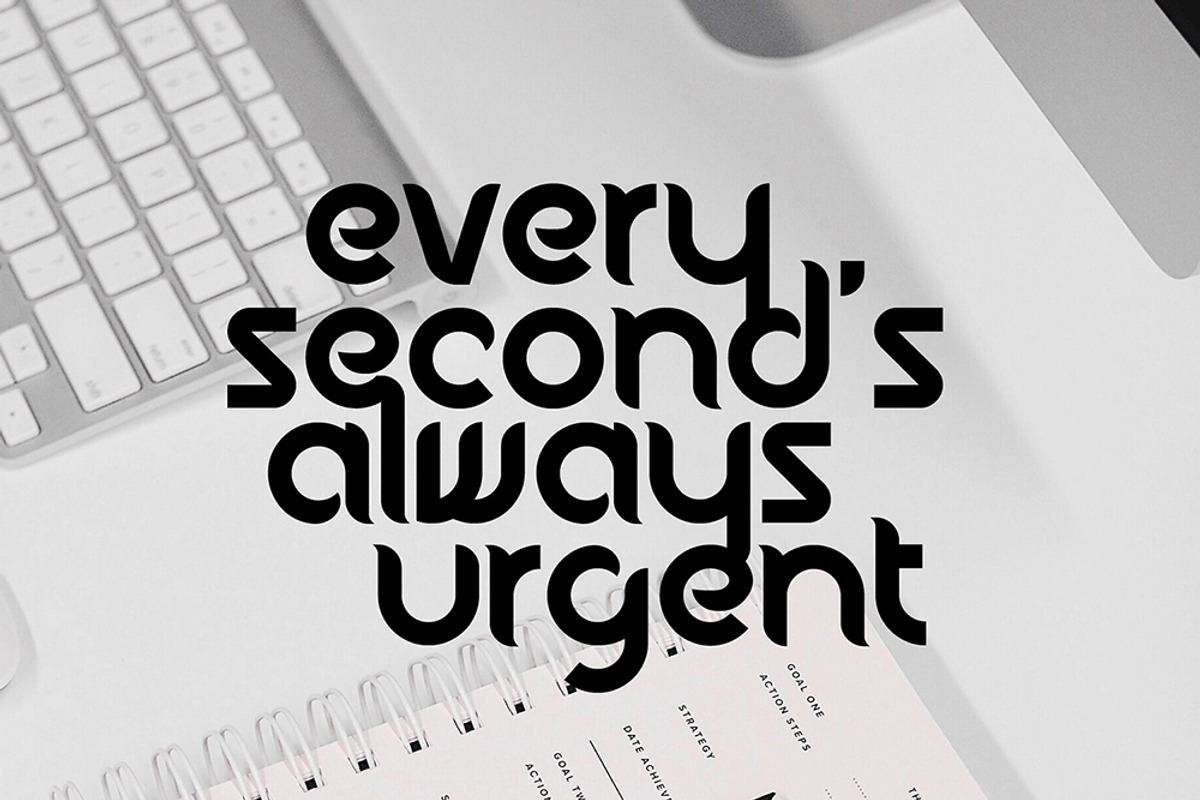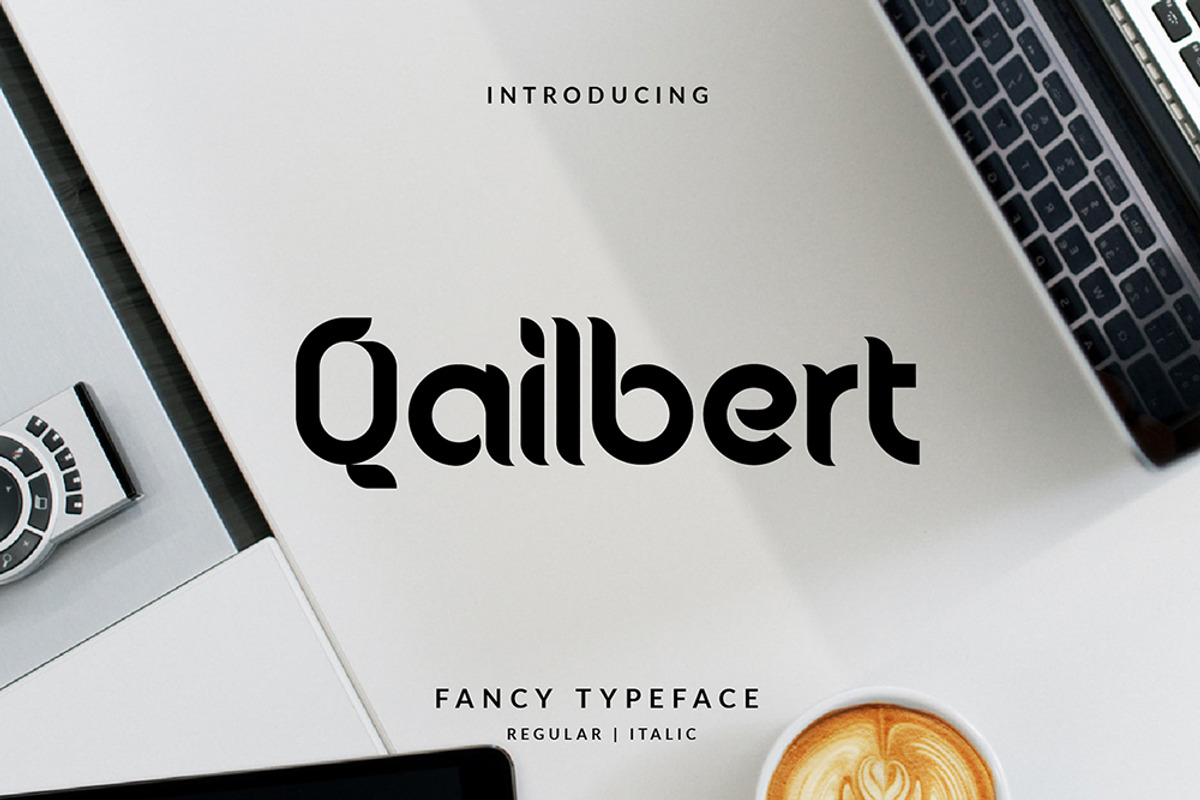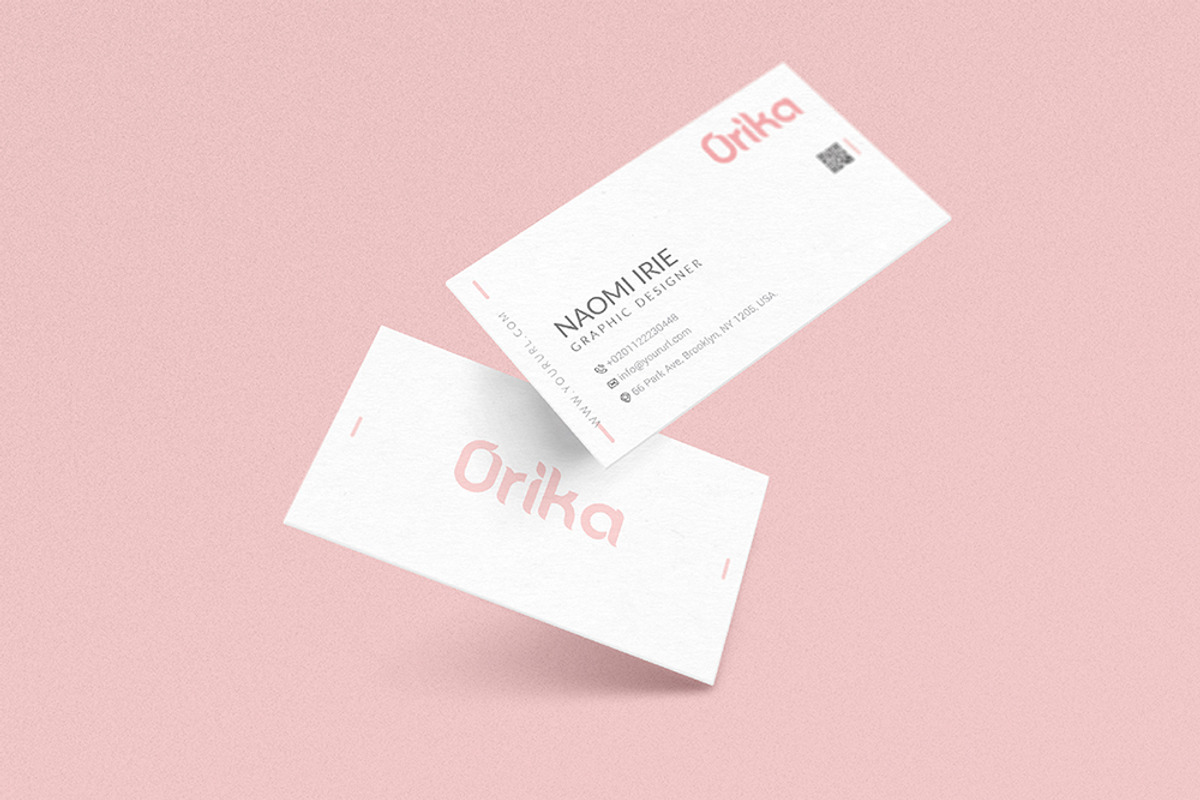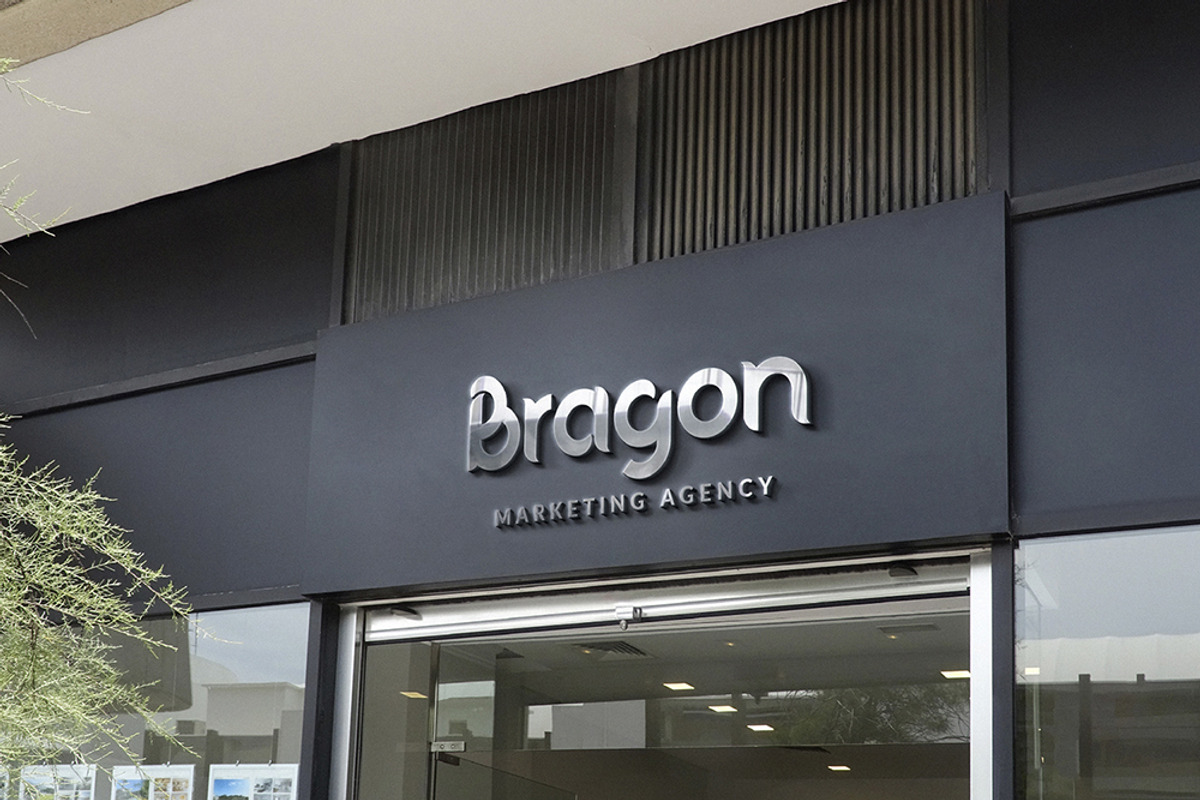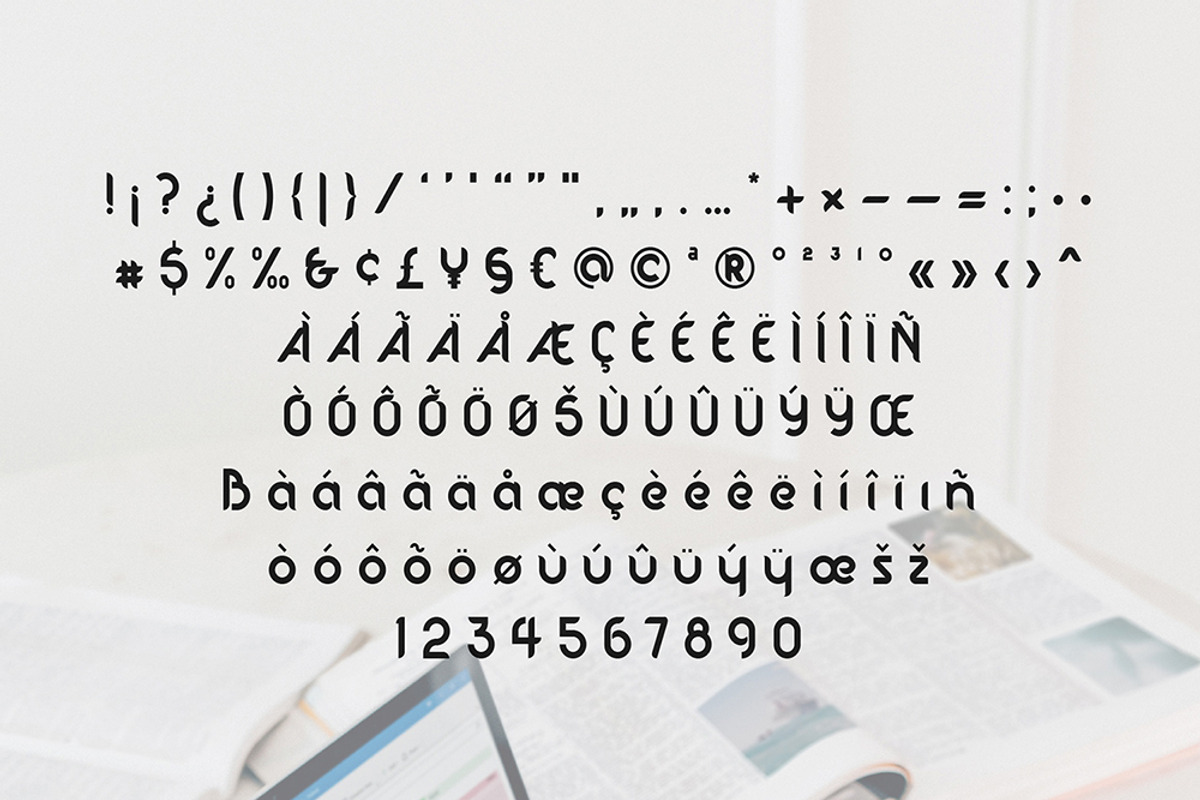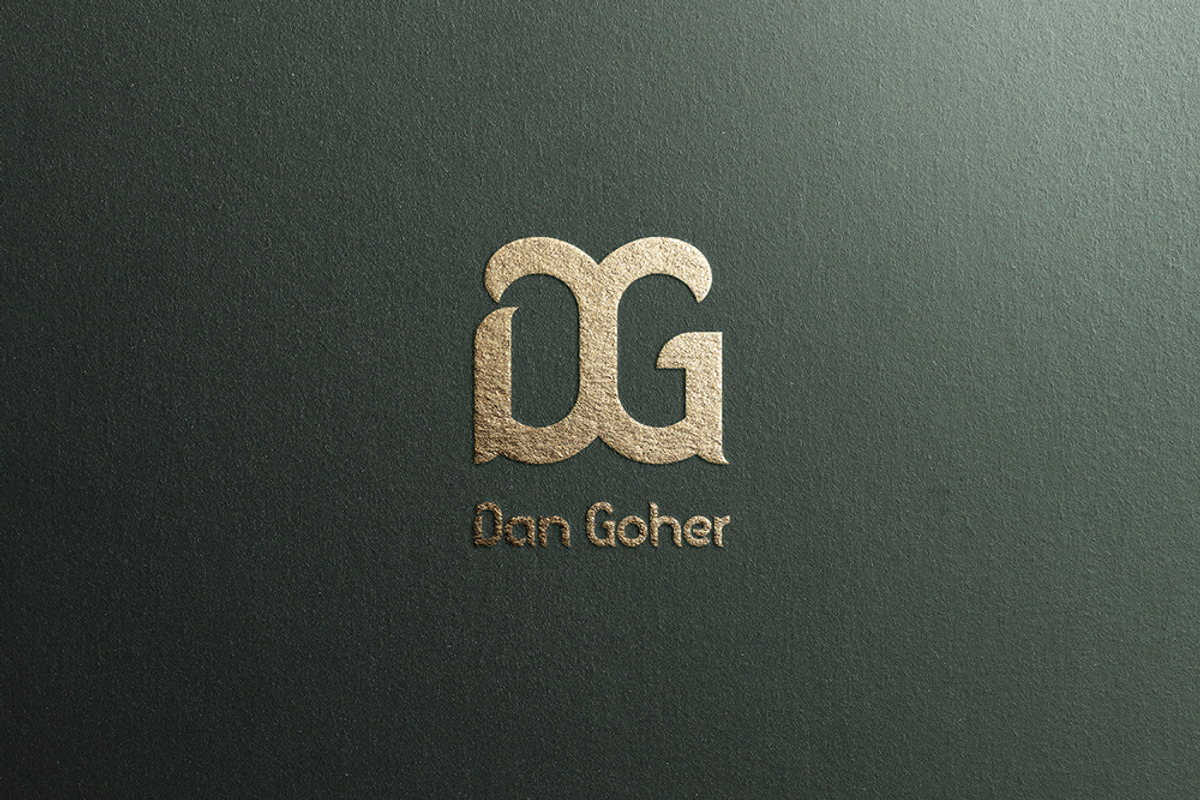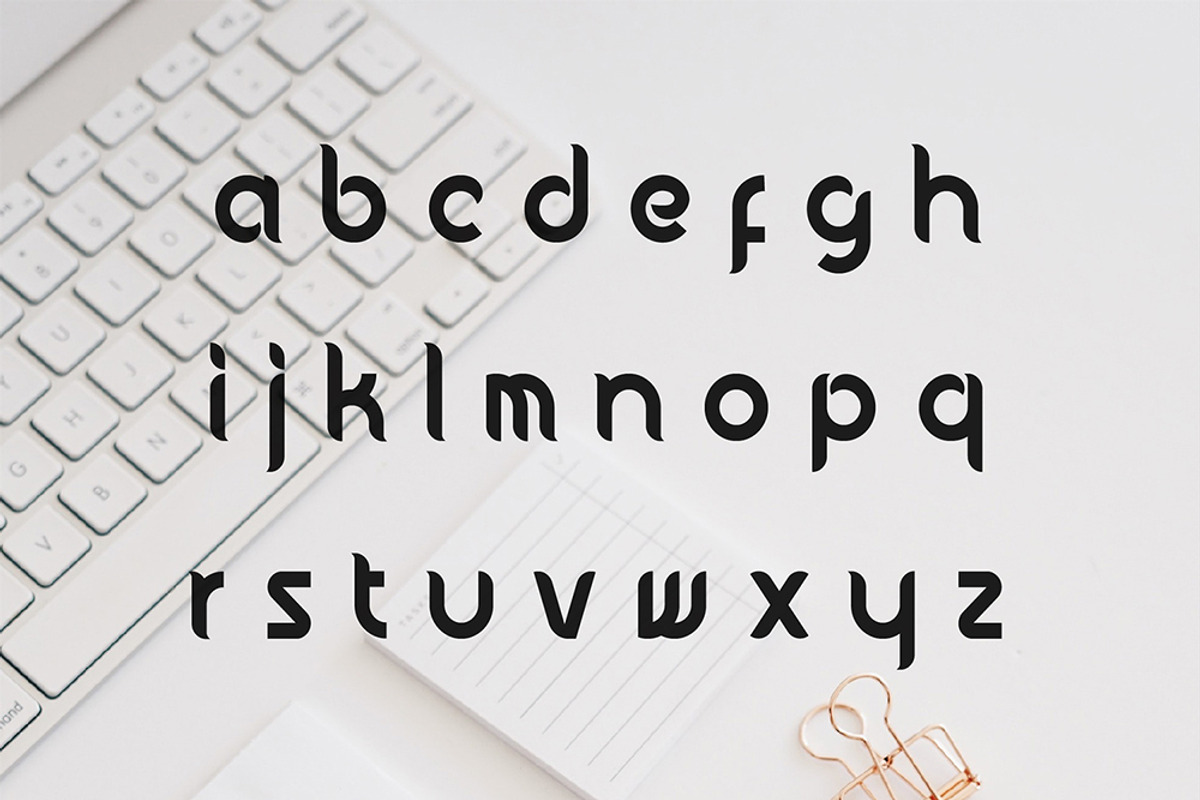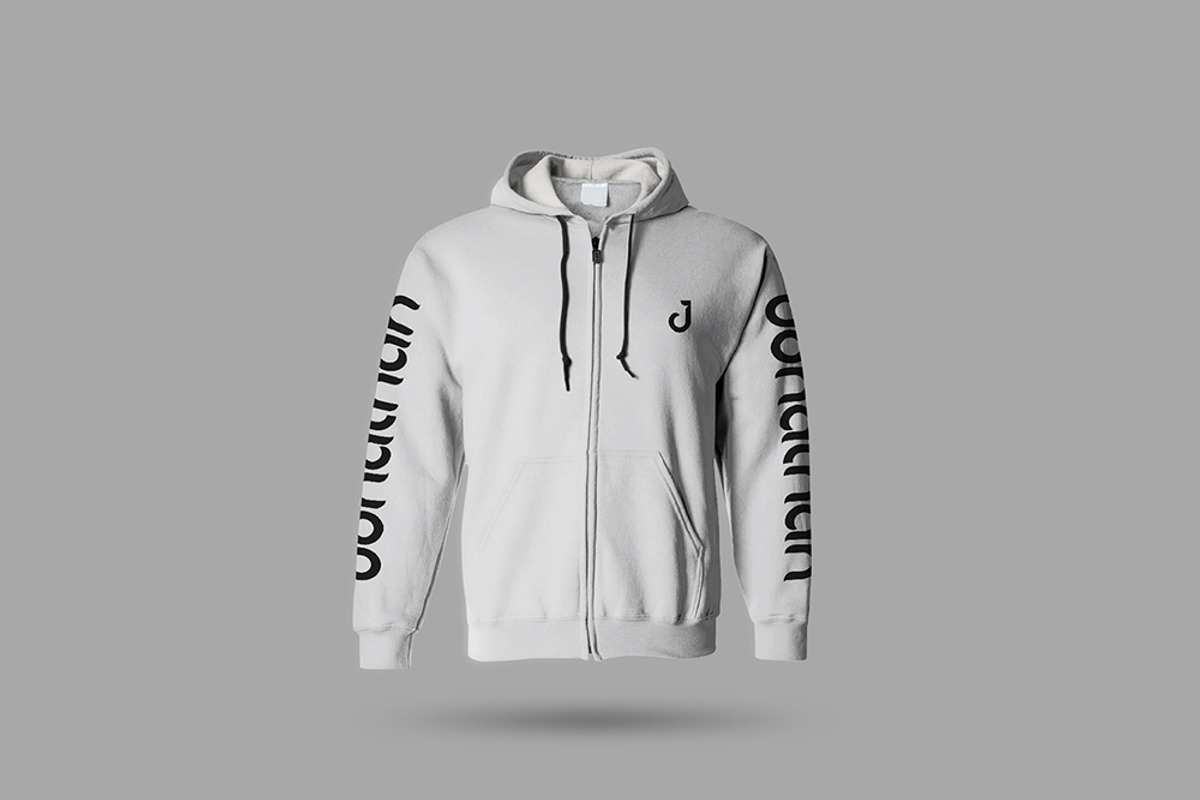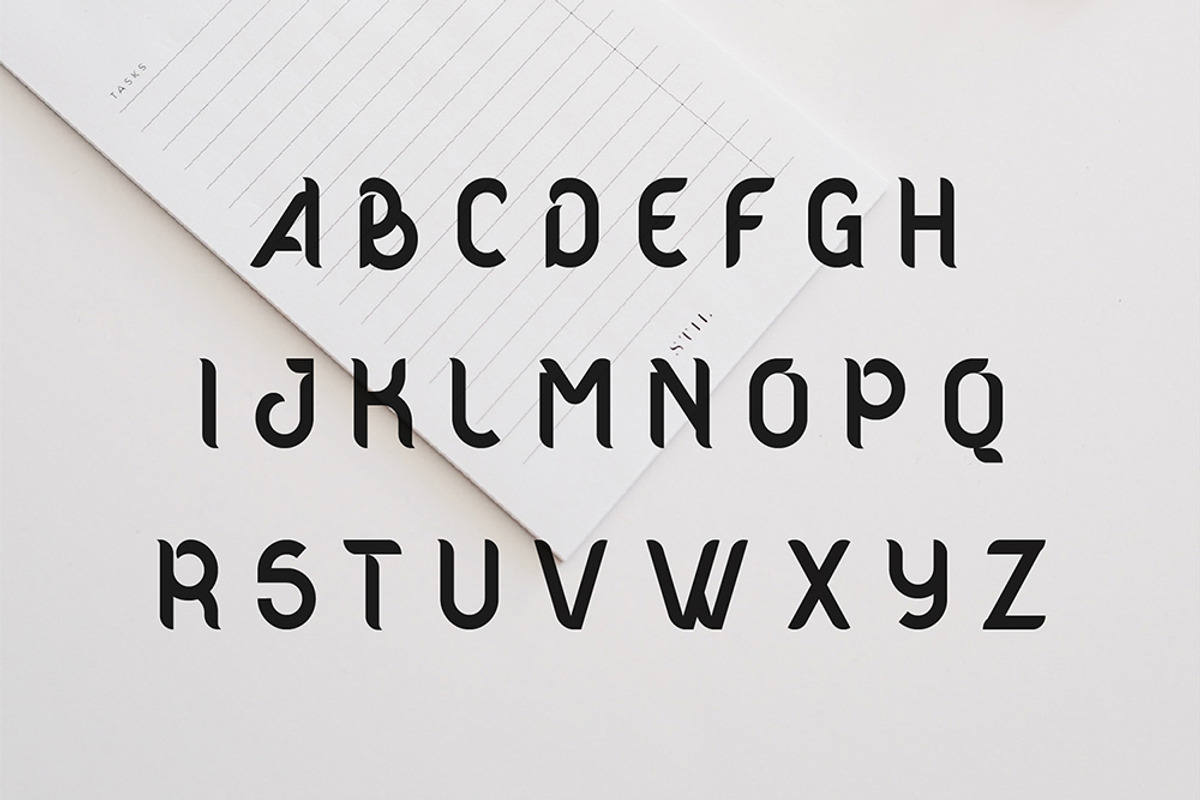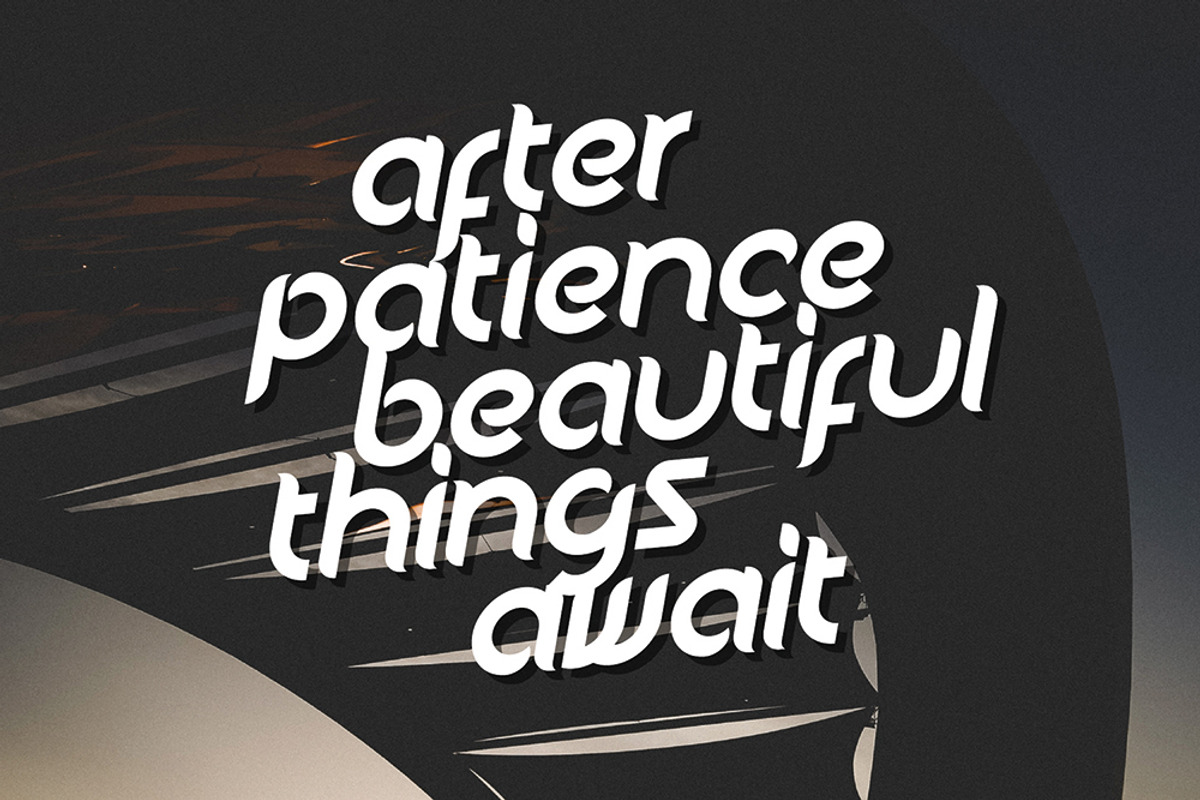
Qailbert Modern Business Font
Qailbert is a fancy typeface/font designed with carefully handcrafted. This perfectly made to be applied in logo or branding, stationery, books, packaging, fashion, magazines, t-shirt, greeting or wedding cards, vintage design, novels, labels and many advertising purposes.